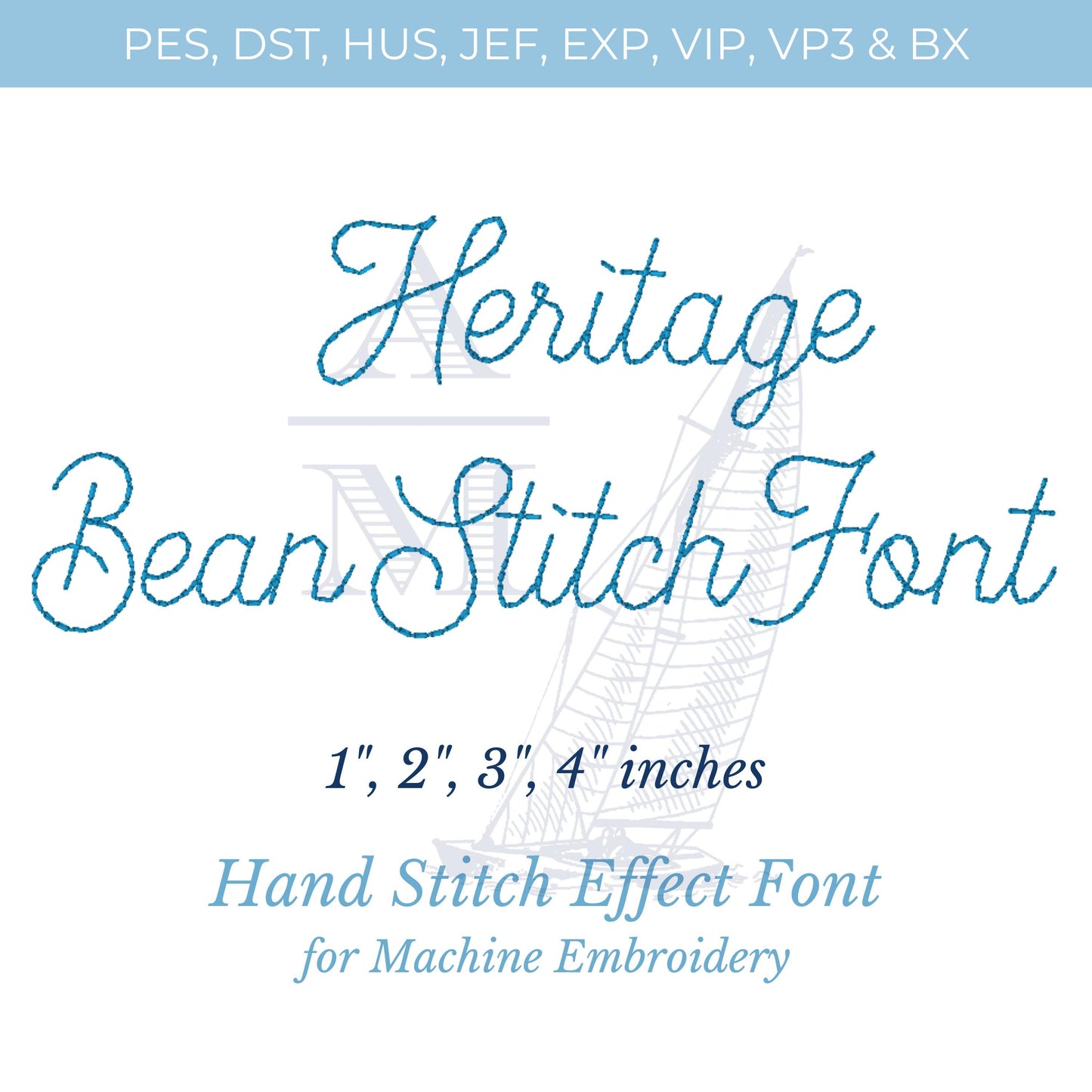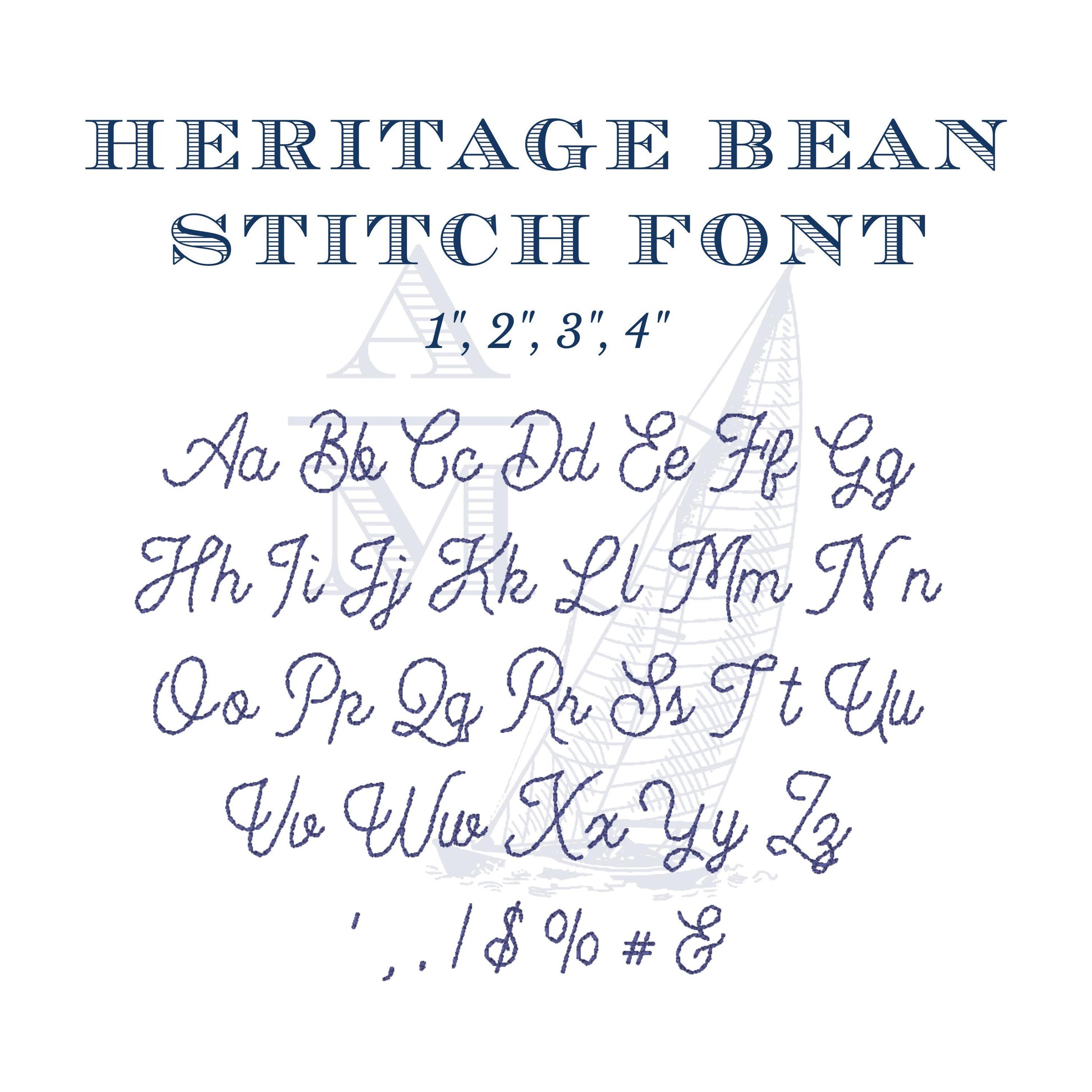
Hand Stitch Handwritten Style Font for Machine Embroidery, Heritage Bean by Annapolis Monograms, Floss Stitch, BX Included 1-4 inches
Introducing the Heritage Bean Stitch Font-- a hand written style floss stitch embroidery font for machine embroidery. This font is classic, with a bit of vintage flair and versatile for many different projects. You will receive 4 different sizes; 1 inch, 2 inch, 3 inch and 4 inch. Please note, the size of the font is based on the height of the the letter ‘M.‘ This font is formatted for these file types: PES, DST, HUS, JEF, EXP, XXX, VP3 and BX. Purchase this handwriting font today!